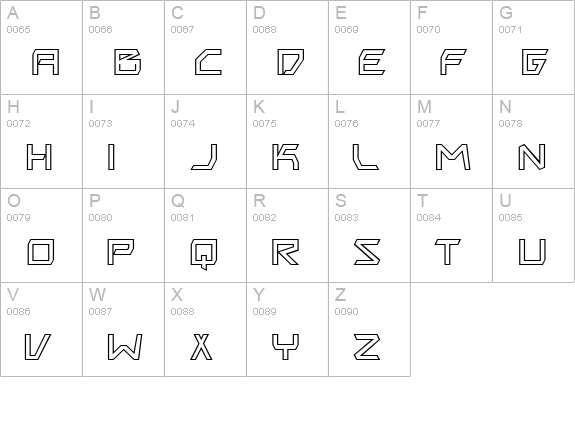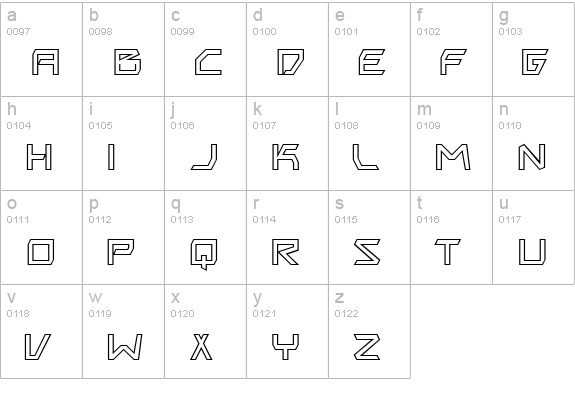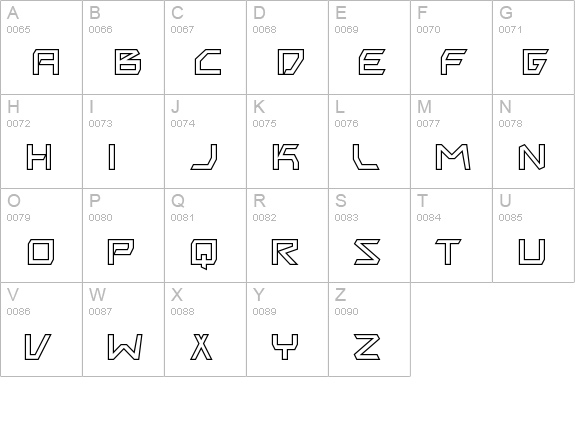
Biting My Nails Outline Font Details
Introducing the captivating Biting My Nails Outline font, a modern and stylish typeface that exudes both sophistication and creativity. This unique font is perfect for adding a touch of flair to any design project, whether it be for branding, advertising, or personal use. With its sleek outlines and edgy aesthetic, Biting My Nails Outline font is sure to make a statement and leave a lasting impression. The clean lines and sharp angles of this font give it a contemporary feel that is both eye-catching and versatile. What's even better is that Biting My Nails Outline font is available for free download at FontsMarket.com. This means you can easily access this stunning font and use it in your projects without any cost. Don't miss out on the opportunity to elevate your designs with this modern and dynamic typeface. Download Biting My Nails Outline font today and let your creativity shine!